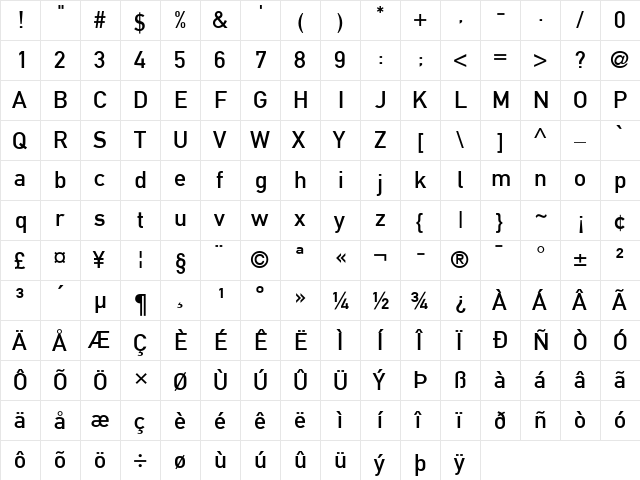
DINMittelschrift LT Alternate Regular Font Preview
DINMittelschrift LT Alternate Regular
Design Context for DINMittelschrift LT Alternate Typeface
DINMittelschrift LT Alternate takes a measured approach to typography — its balanced proportions and neutral character make it a reliable workhorse for both digital and print work. Its slender proportions lend an understated elegance to any composition.